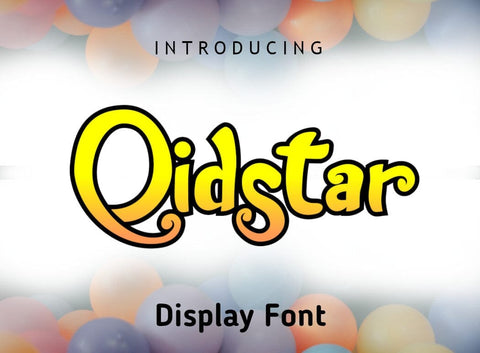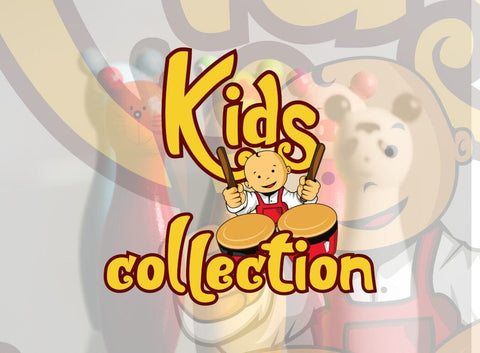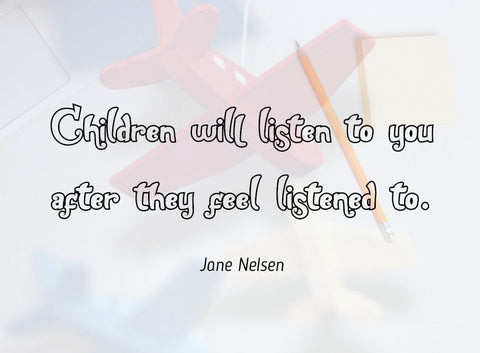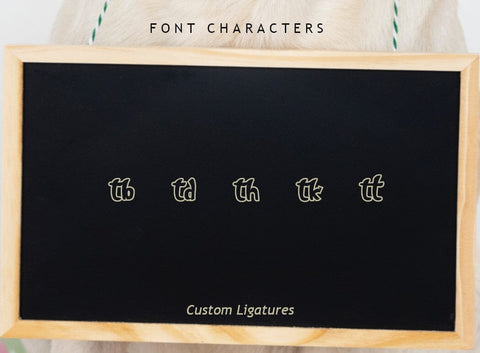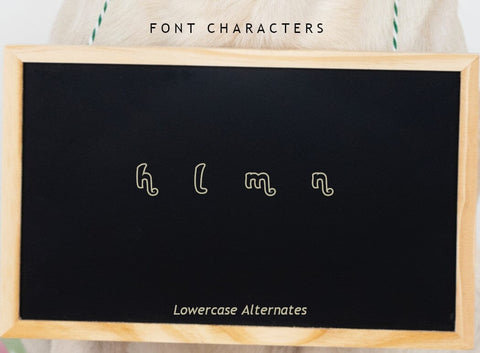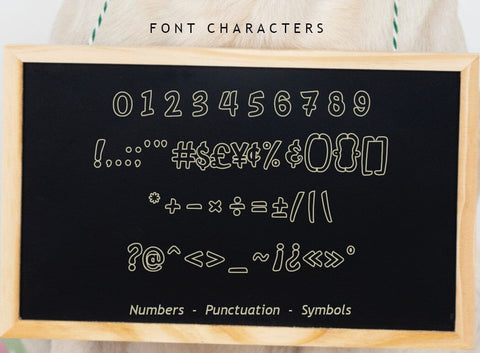
Qidstar Font
Qidstar is fun bold display font.
Suitable for childish and fun designs such as quotes, logos, headers etc.
- Uppercase A-Z
- Lowercase a-z
- Numbers 0-9
- Accents
- Punctuation
- Custom Ligatures
- Lowercase Alternates